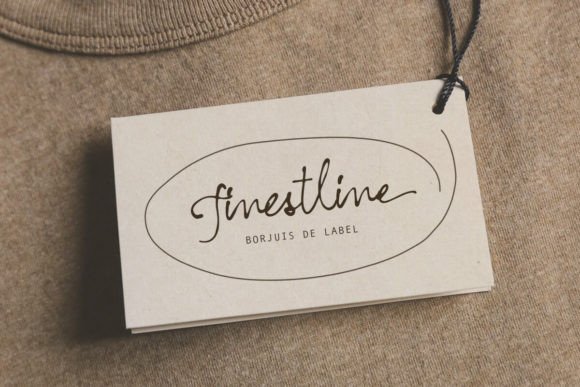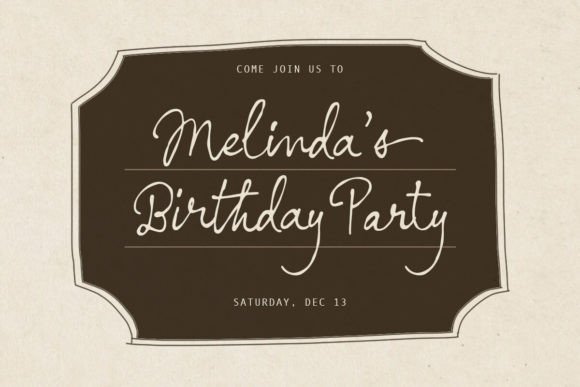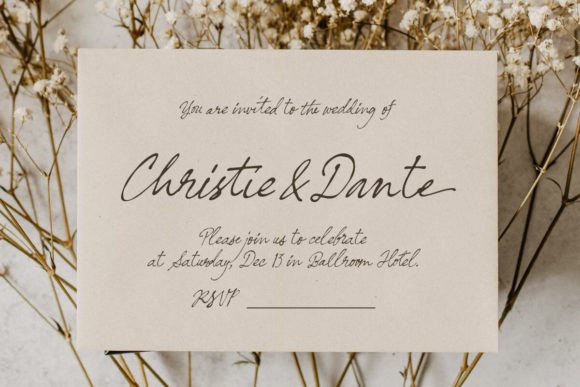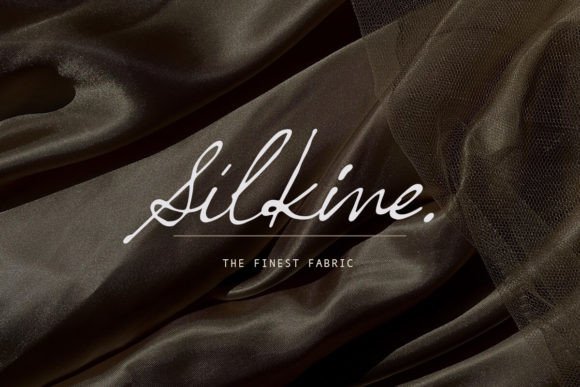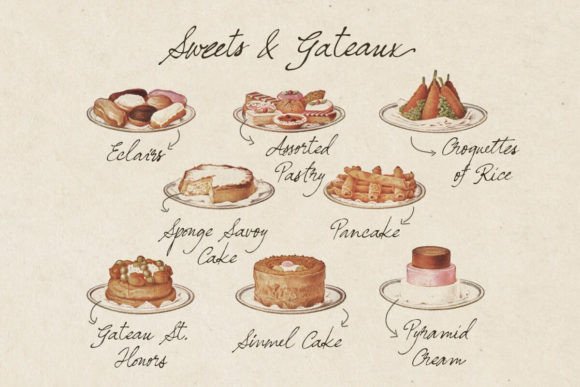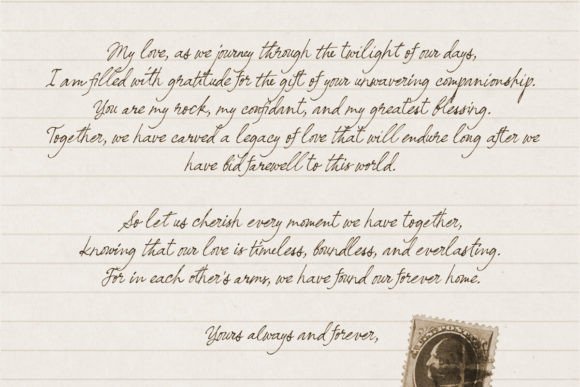
Introduction to Nostalgic Words Font
Nostalgic Words is a vintage signature script based on manual hand writing.
This typeface comes with ligatures and alternates This type of font is perfectly made to be applied especially in logo, and the other various formal forms such as invitations, labels, logos, magazines, books, greeting / wedding cards, packaging, fashion, make up, stationery, novels, labels or any type of advertising purpose.